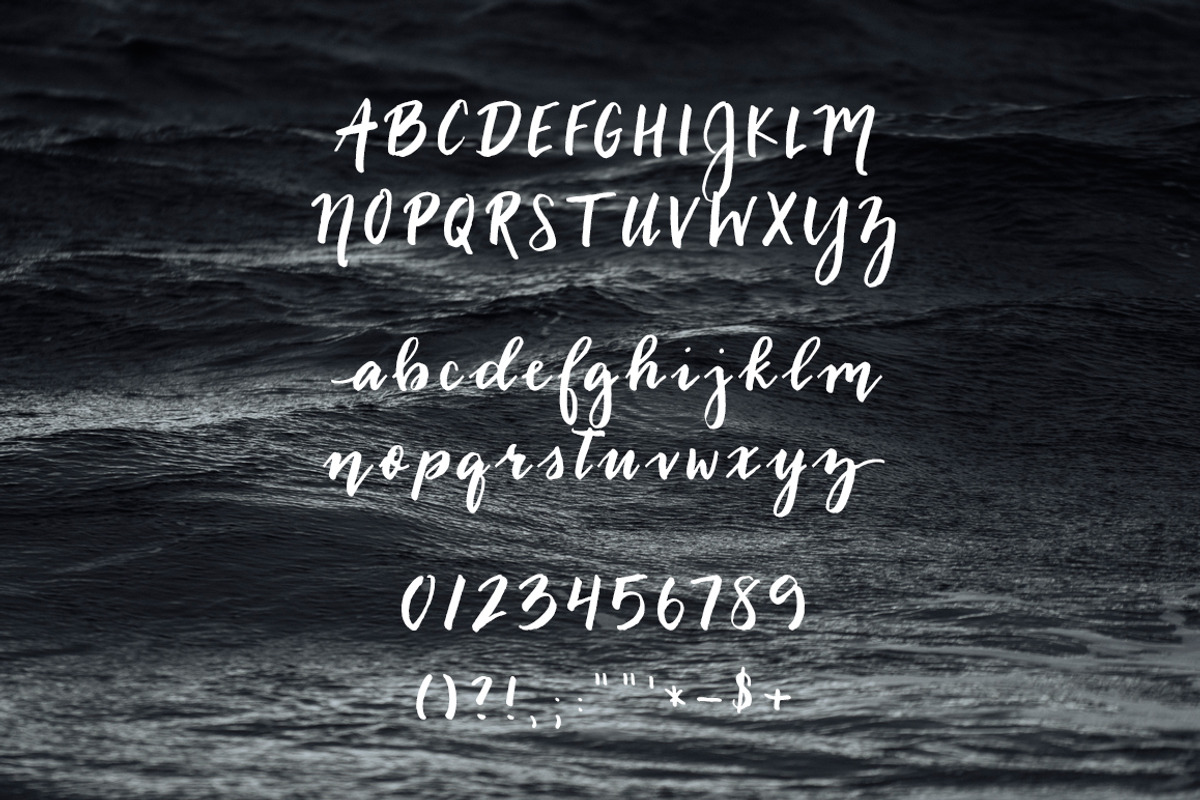
Honolulu | Modern Calligraphy Font
Honolulu | Modern Calligraphy Font by Jen Wagner Co is a font selected for branding, posters, packaging, typography.
- Created using a brush pen Includes uppercase & lowercase letters numbers & basic punctuation beginning and ending letter tails Show More
- Place your words in "greater than" "less than" brackets to add tails to your beginning and ending lowercase letters for some added flair!
Honolulu | Modern Calligraphy Font by Jen Wagner Co fits naturally into Branding, posters, packaging, typography.